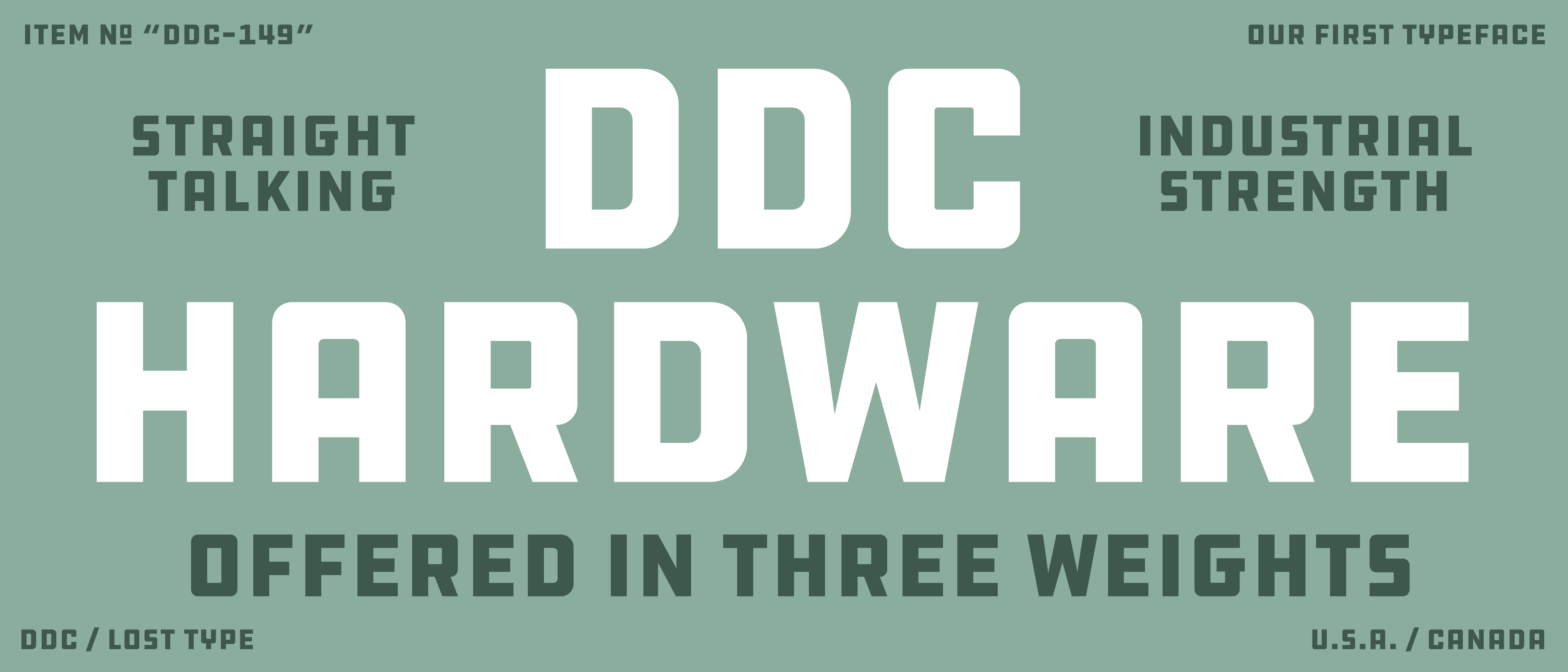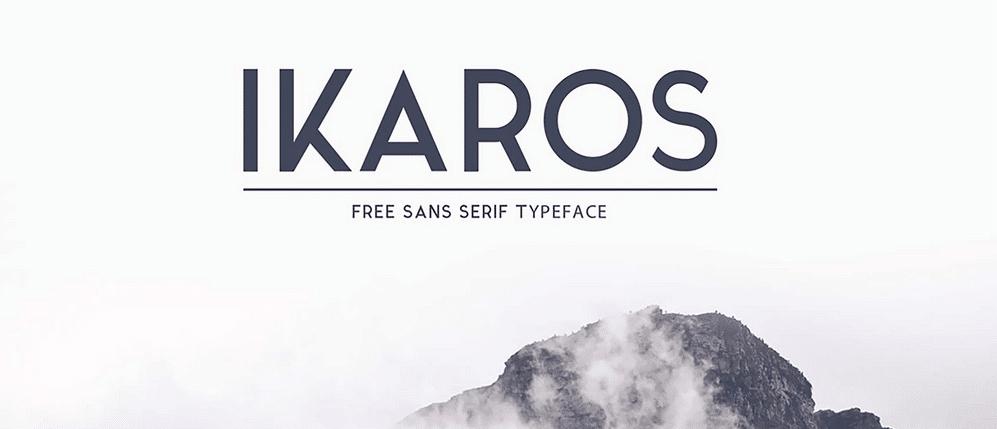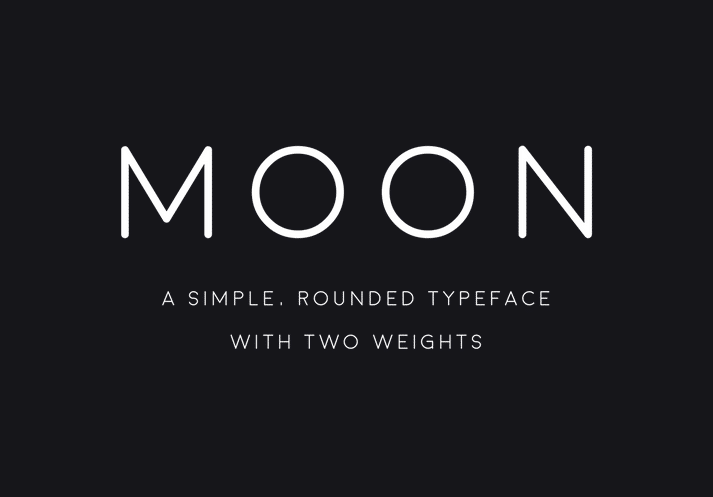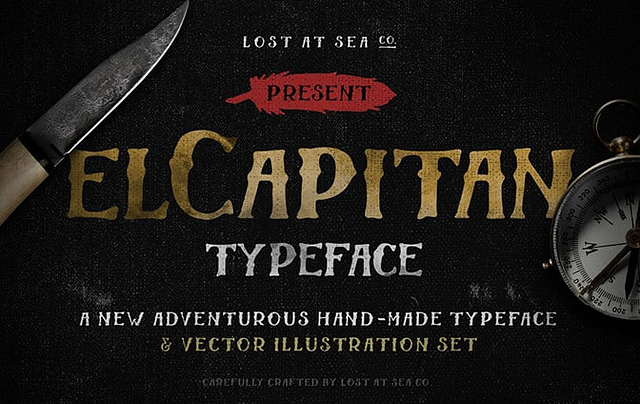
54 Free Modern Fonts – The Ultimate List
Here I’m curating the ultimate list of free modern fonts. Graphic and Web Designers rejoice!
Here is a full list of the best 54 free modern fonts for 2019:
3 New Free Modern Fonts for 2019!
Free Modern Fonts for 2018
DDC Hardware
A straight-talkin’, industrial-strength typeface in three weights. Aaron Draplin and LostType Co-op present a gorgeous / thicc font for your designing enjoyment.
Archive Typeface
This font reminds me of Geogrotesque with a little bit of futuristic flair. Delightful details make this subtly expressive sans-serif font an amazing addition to our free modern fonts archive!
Lehigh
Slab-serifs can be perfect for very specific design scenarios – titles and subtitles for something that needs a bit more personality without going too feminine – slab-serifs are nice. Old school business folks might not be able to stomach the personality, but I like it.
Junction – San-serif
A lovely humanist sans-serif, Junction feels a bit tightly wound in that the lowercase almost feels a little pinched; overall a nice looking font though. It comes in several weights, which I think makes it a lot more versatile.
Nexa Rust – Rough Slab Serif
I love slab-serifs. The letterforms are beautiful, and this one has a lot of great characteristics. Throw in some weathering and you have a solid modern font.
Royals – Wood-type / Vintage / Display
You may have read my article that extols the virtues of the font ‘Brothers’ for possible use in branding; here’s an alternative with a good amount of weight and girth. Which can come in handy in certain scenarios.
El Capitan – Hand Lettered
This font has a hand-lettered look to it. I love the organic feel of the shapes and height of the features.
Kino 40 – Blocky Script
Kind of in a league of it’s own, Kino 40 is a blocky script.  Inspired by the old cinema handwriting style, apparently, whatever that is. I like it.
Bizon – Hand-lettered
Another hand-lettered font, it looks very intentionally rough, but san-serif is an interesting choice for a hand-made font. Nicely done.
Aroly – Geometric Display
This font has a fairly limited amount of places you could use it in my opinion because of how distinct it is, but I can imagine it being dropped back in a classy way, huge and as a watermark somehow.
Ikaros – Sans Serif
In a way, Ikaros reminds me of the font Raleway, in that it’s a bit of a fresh take on a sans-serif font without going too crazy.
Moon – Rounded San-serif
In school for graphic and web design, we were charged with creating a typeface. It could be a modified version of an existing one. I took my favorite (Proxima Nova) and rounded the edges while adding some little extras. In this case, moon has the classiness of a Gotham or Proxima Nova with a nice friendly rounded aspect. I’m going to have to keep this one in mind.